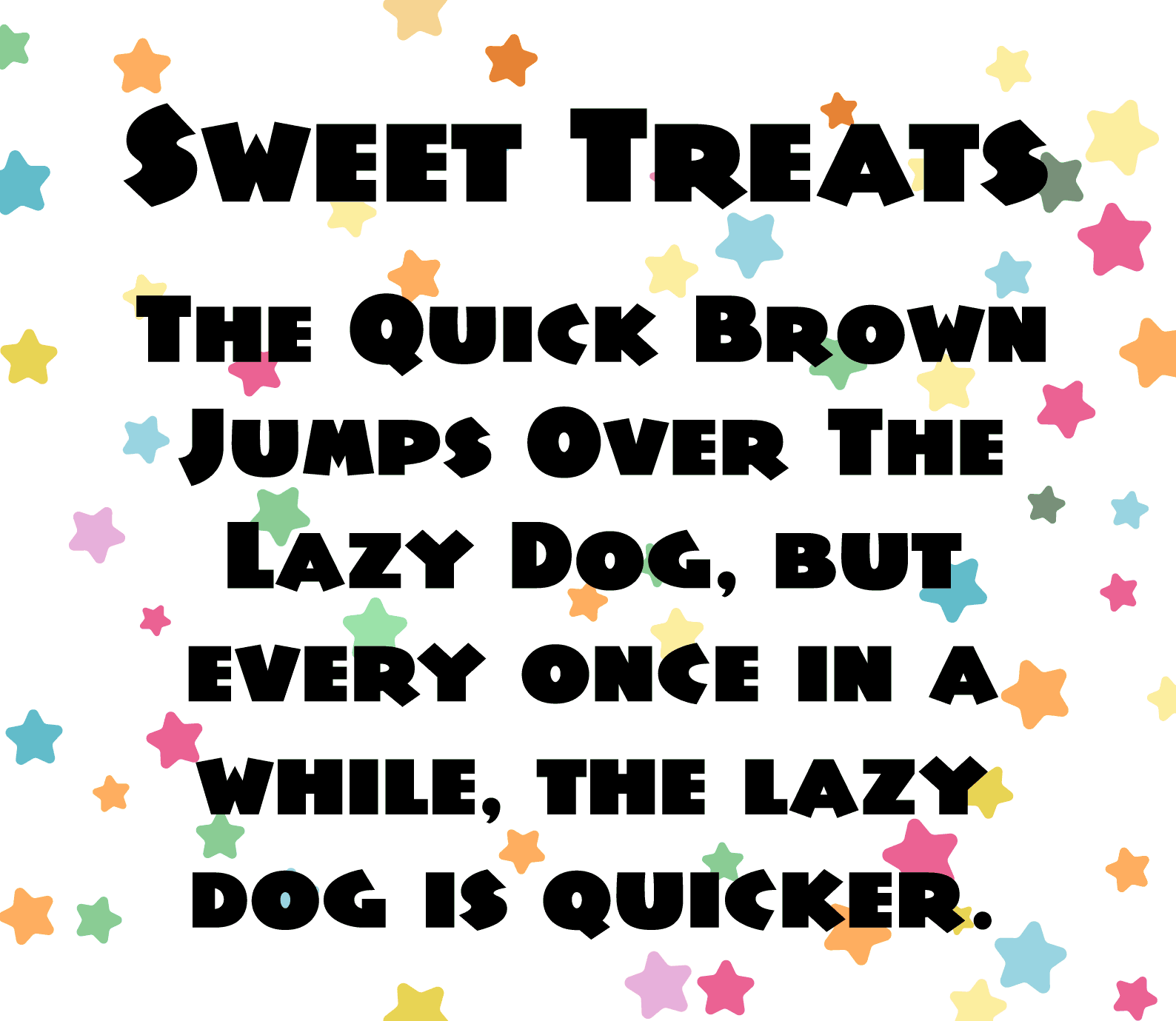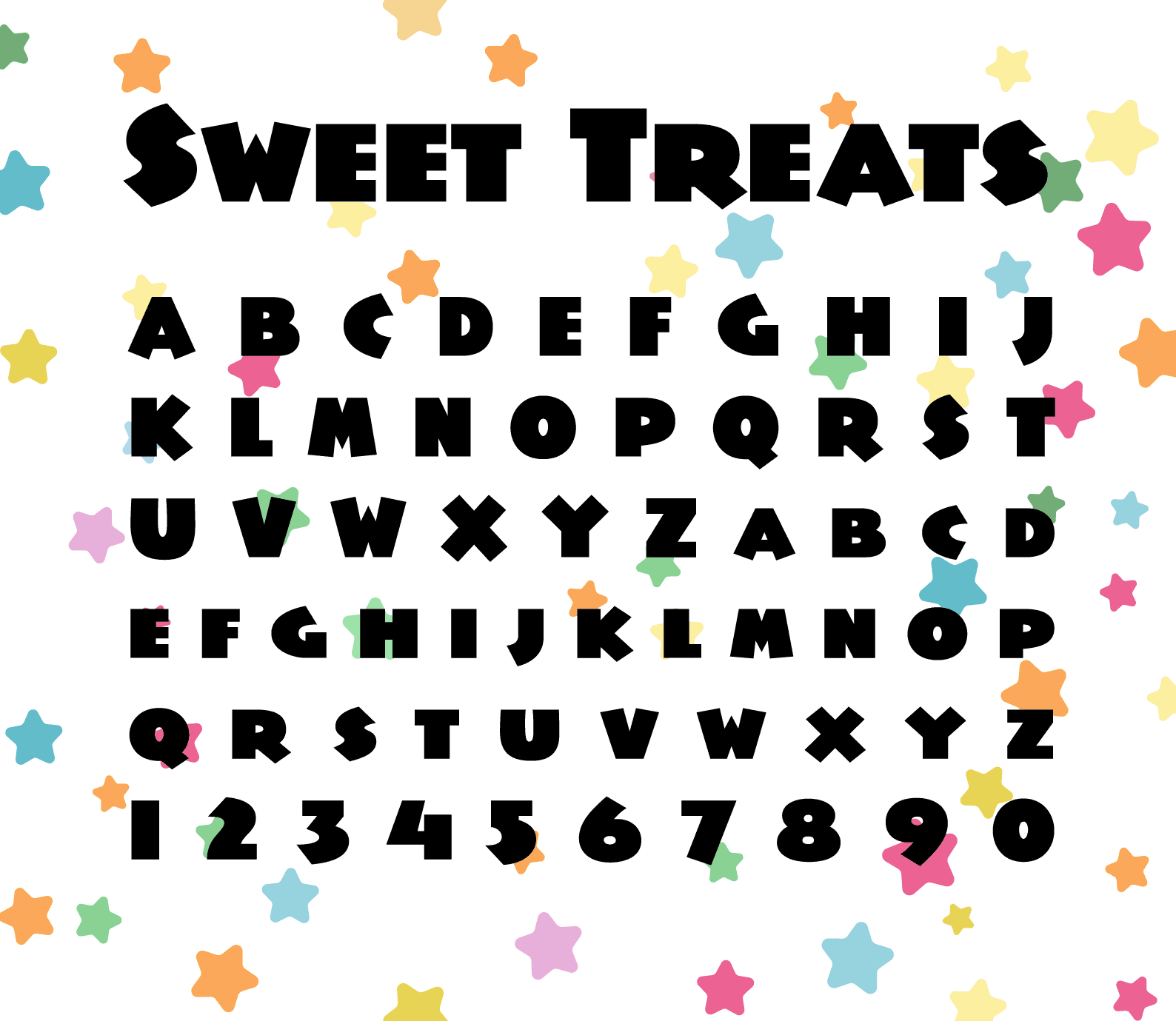
This font is based on a circus poster. The poster dates back to 1913 if the site where I found it is correct. The poster is for Circus Busch, and the title is “Die Nibelungen”. It has “Circus Busch” rendered in chunky letters with strokes that terminate with interesting angles. I knew I had to create the rest of the alphabet and make a font from it.